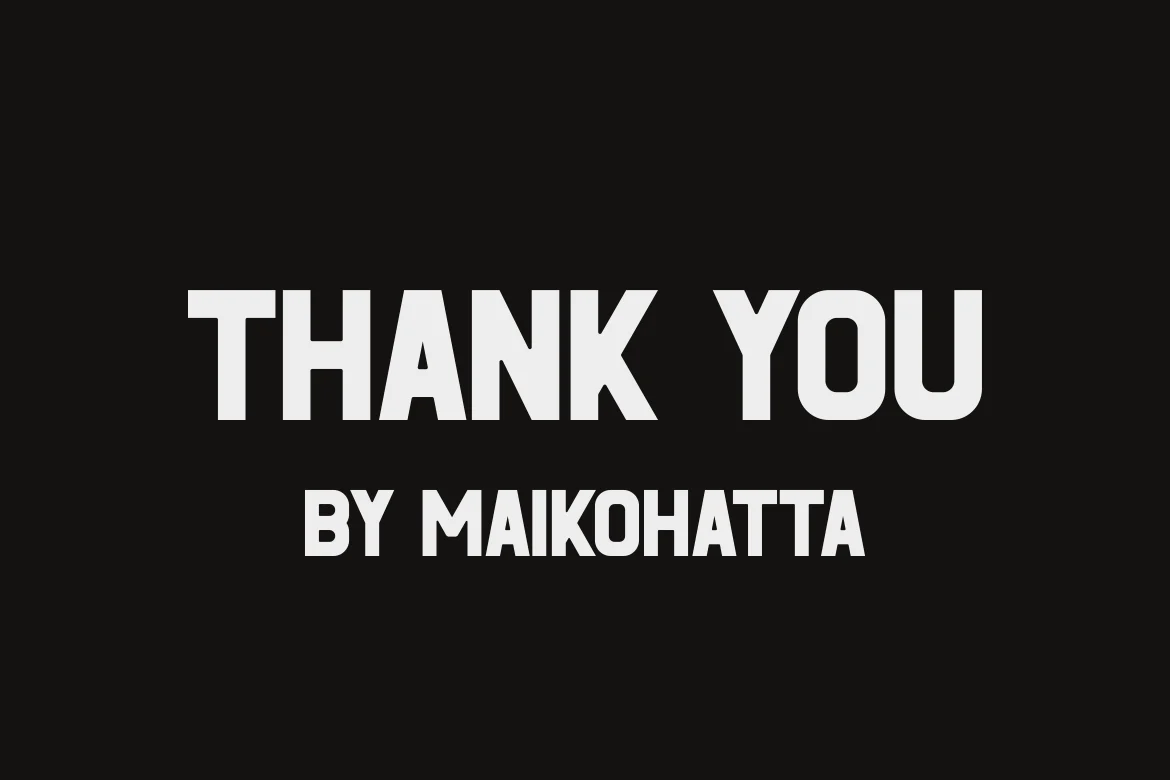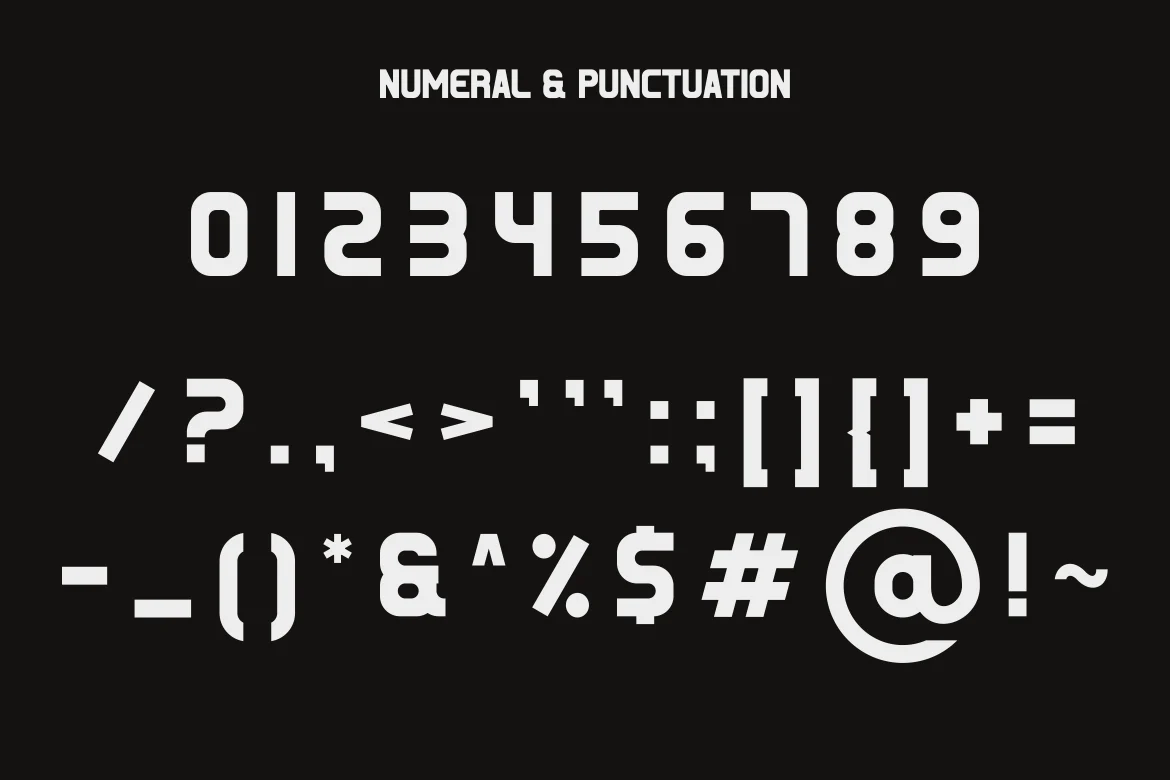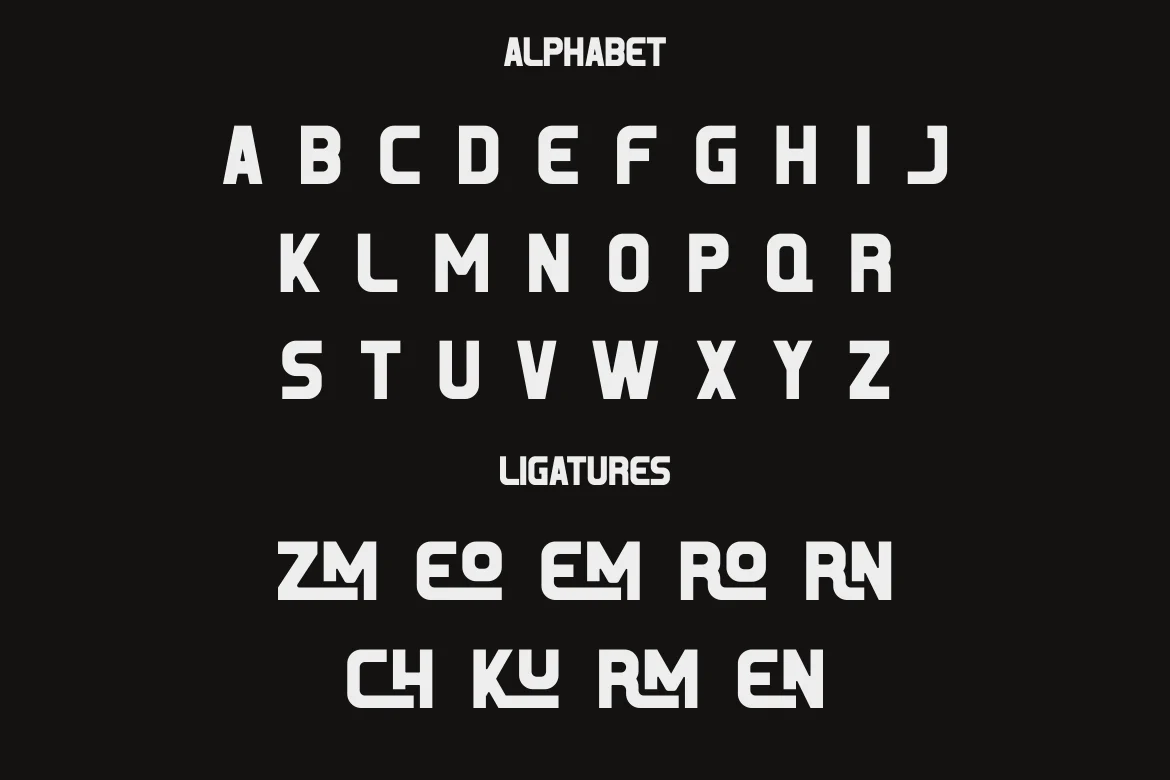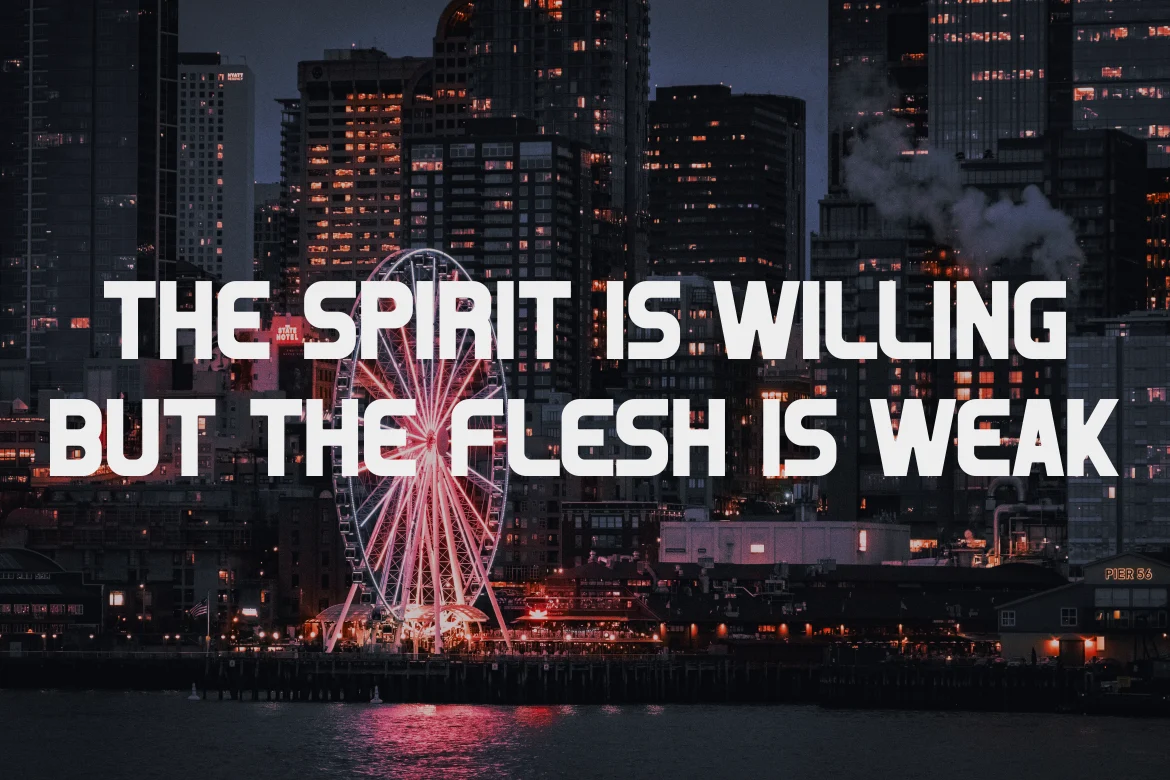
ROSEMERO EMPEROR FONT
Introducing our new product ROSEMERO EMPEROR FONT - Modern Font
ROSEMERO EMPEROR FONT - Modern Font is a bold and authentic display font. The font is suitable for any branding project like logo, template design, esport, and many more. outstanding in a wide range of contexts.